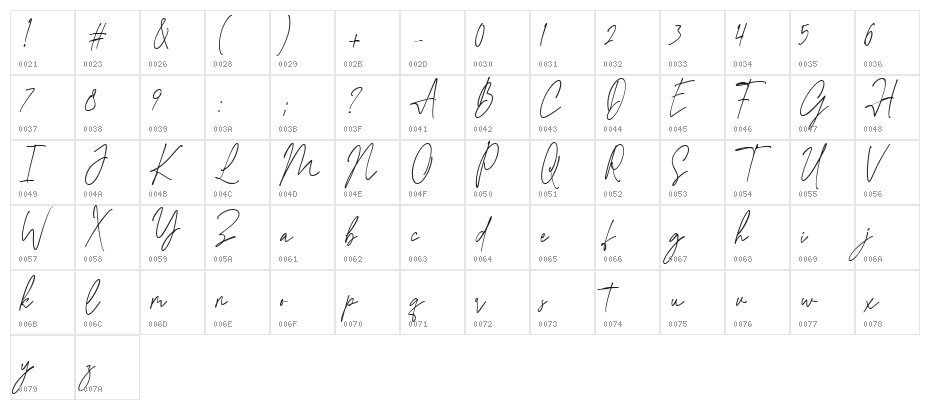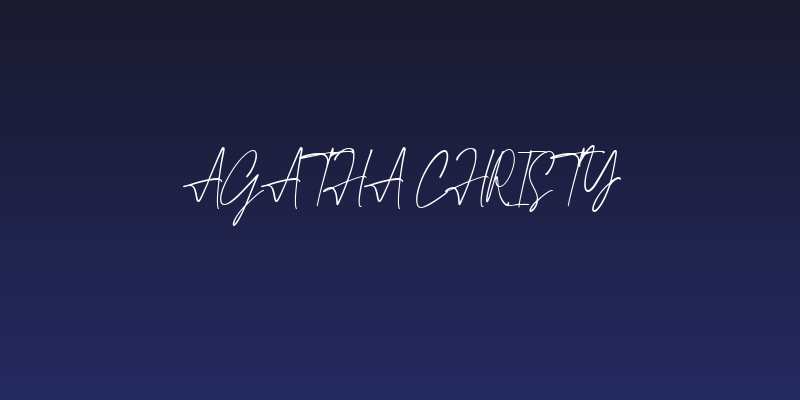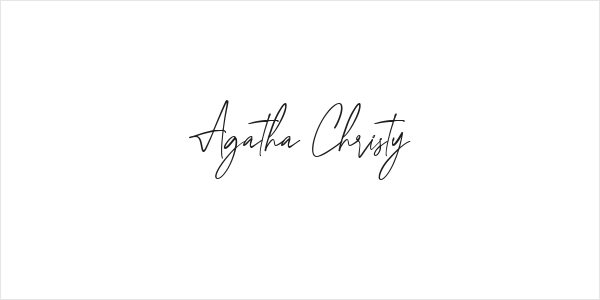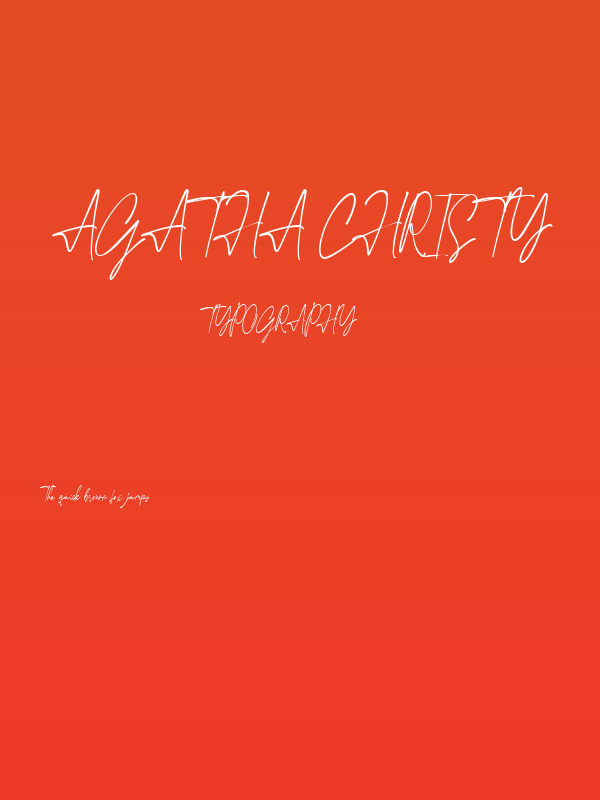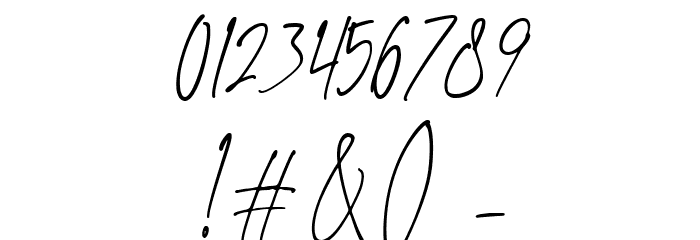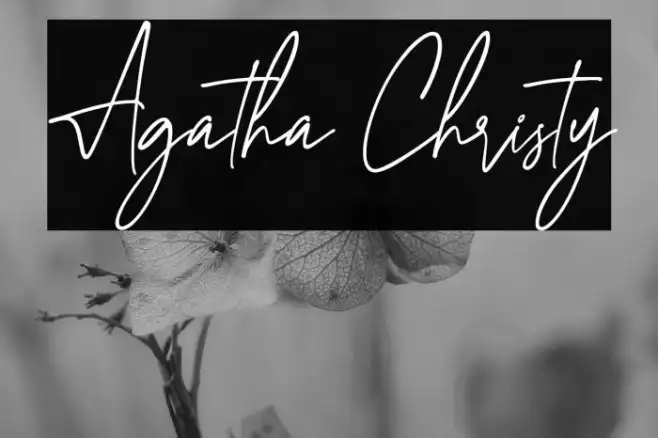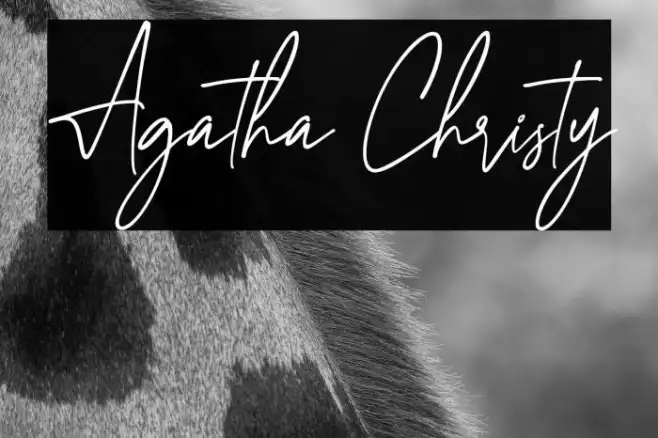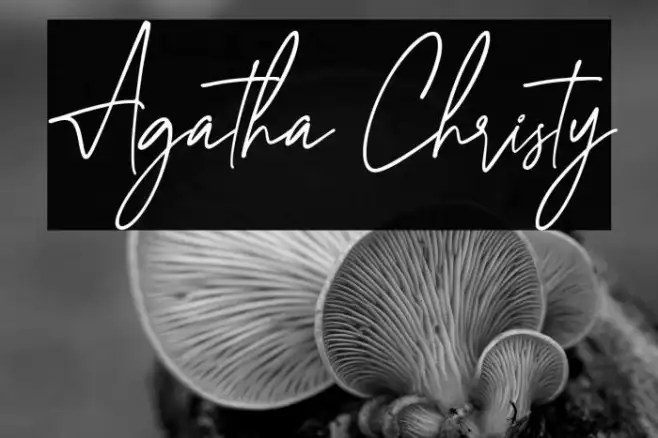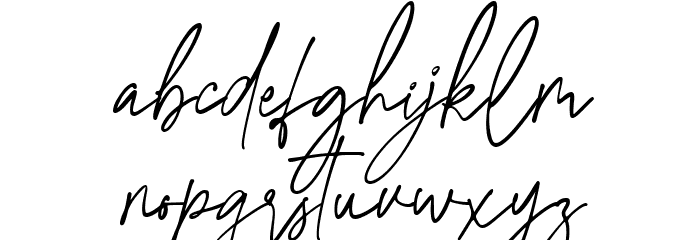
Agatha Christy Font
Agatha Christy Description
This font features a dynamic and fluid handwritten style, characterized by its elegant, flowing script. The letters are connected with smooth, sweeping strokes that give it a personal and artistic touch. The uppercase letters are tall and slightly slanted, while the lowercase letters maintain a consistent, flowing baseline. The numerals and special characters complement the overall style with their graceful curves and loops. The font exudes a sense of sophistication and creativity, making it ideal for projects that require a personal or artistic flair.